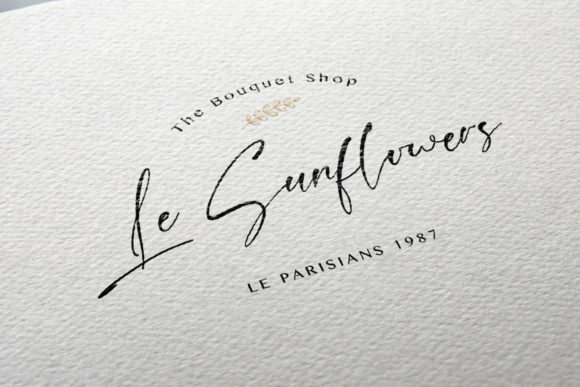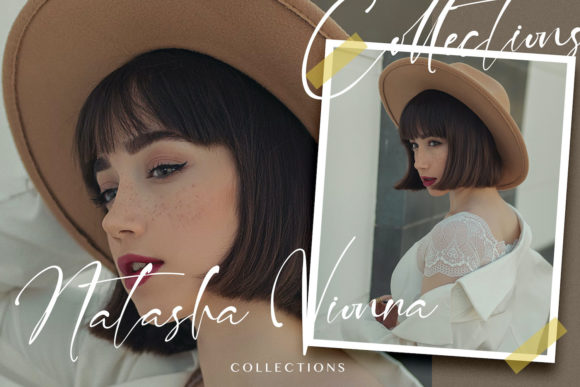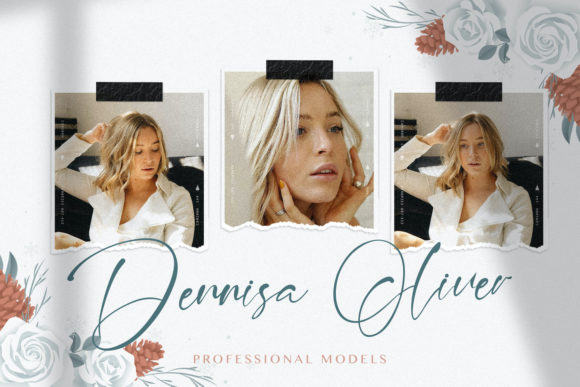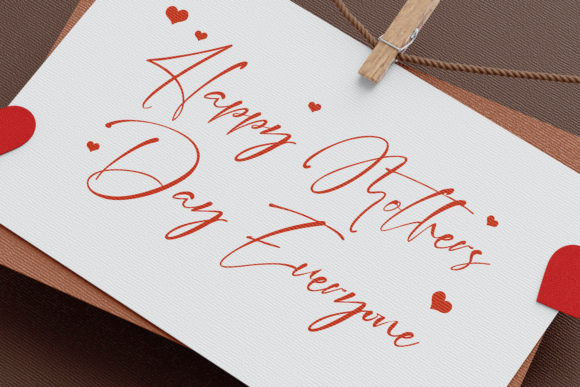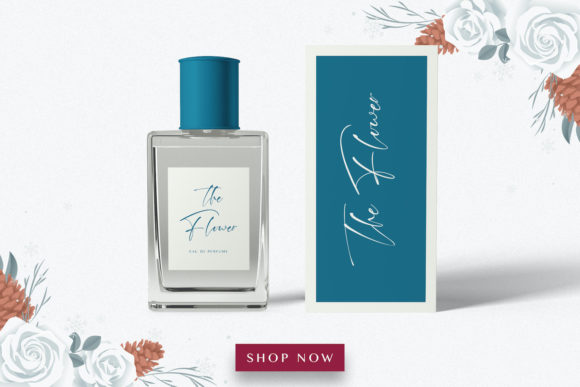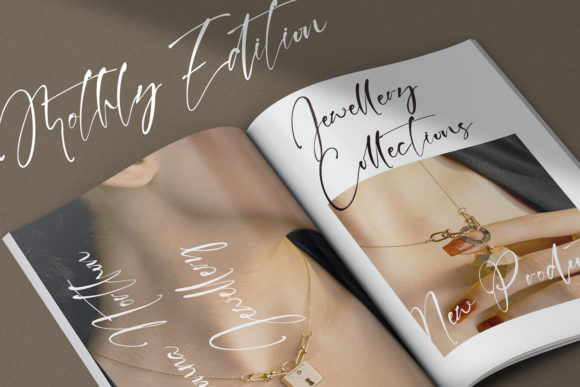
Cinta Sehatti Font: Elevate Your Designs with Elegance and Sophistication
Are you tired of using the same old fonts in your designs? Look no further than Cinta Sehatti, an exquisite handwritten font that is sure to become your new favorite. With its perfect blend of classy calligraphic influences and modern freshness, Cinta Sehatti is the ideal choice for designers and crafters looking to add a touch of elegance and sophistication to their projects.
The Story Behind Cinta Sehatti
Cinta Sehatti is more than just a font – it’s a work of art. Masterfully designed to capture the essence of handwritten calligraphy, this stunning font is perfect for those who appreciate the beauty of the written word. Whether you’re working on a branding project, a wedding invitation, or a craft project, Cinta Sehatti is sure to impress.
What Makes Cinta Sehatti So Special?
So, what sets Cinta Sehatti apart from other fonts? Here are just a few reasons why this font is a cut above the rest:
- Classy Calligraphic Influences: Cinta Sehatti boasts elegant, flowing lines that are reminiscent of traditional calligraphy. This font is perfect for adding a touch of sophistication and refinement to your designs.
- Contemporary and Fresh: Despite its classic influences, Cinta Sehatti feels modern and fresh. This font is perfect for designers who want to create unique and eye-catching designs that stand out from the crowd.
- Versatile: Cinta Sehatti is incredibly versatile, making it suitable for a wide range of projects, from branding and advertising to wedding invitations and crafting.
- Easy to Read: One of the most important aspects of any font is readability, and Cinta Sehatti delivers. This font is clear, legible, and easy to read, making it perfect for body text and headlines.
How to Use Cinta Sehatti in Your Designs
Now that you’re falling in love with Cinta Sehatti, let’s talk about how to incorporate it into your designs. Here are a few ideas to get you started:
- Branding and Logo Design: Use Cinta Sehatti to create stunning logos and branding materials that exude elegance and sophistication.
- Wedding Invitations: Add a touch of romance and whimsy to your wedding invitations with Cinta Sehatti.
- Crafting and Scrapbooking: Cinta Sehatti is perfect for crafters and scrapbookers who want to add a personal touch to their projects.
- Advertising and Marketing: Use Cinta Sehatti to create eye-catching ads and marketing materials that stand out from the crowd.
Tips and Tricks for Getting the Most Out of Cinta Sehatti
To help you get the most out of Cinta Sehatti, here are a few tips and tricks:
- Experiment with Different Sizes: Cinta Sehatti looks great in a variety of sizes, so don’t be afraid to experiment and find the perfect size for your project.
- Pair it with Other Fonts: Cinta Sehatti pairs beautifully with other fonts, so try combining it with a sans-serif font for a striking contrast.
- Use it for Headlines and Body Text: Cinta Sehatti is clear and legible, making it perfect for both headlines and body text.
In conclusion, Cinta Sehatti is an exquisite handwritten font that is sure to become a true favorite. With its perfect blend of classy calligraphic influences and modern freshness, this font is perfect for designers and crafters looking to add a touch of elegance and sophistication to their projects. So why wait? Fall in love with Cinta Sehatti and bring your projects to the highest levels!